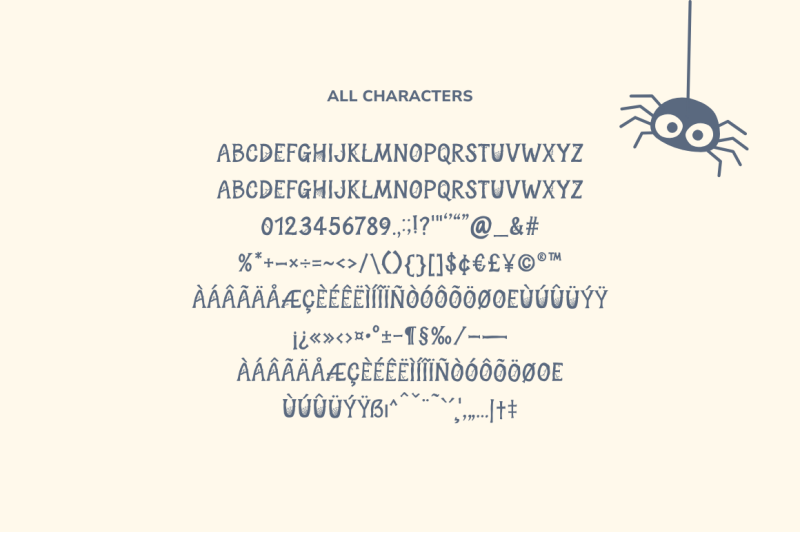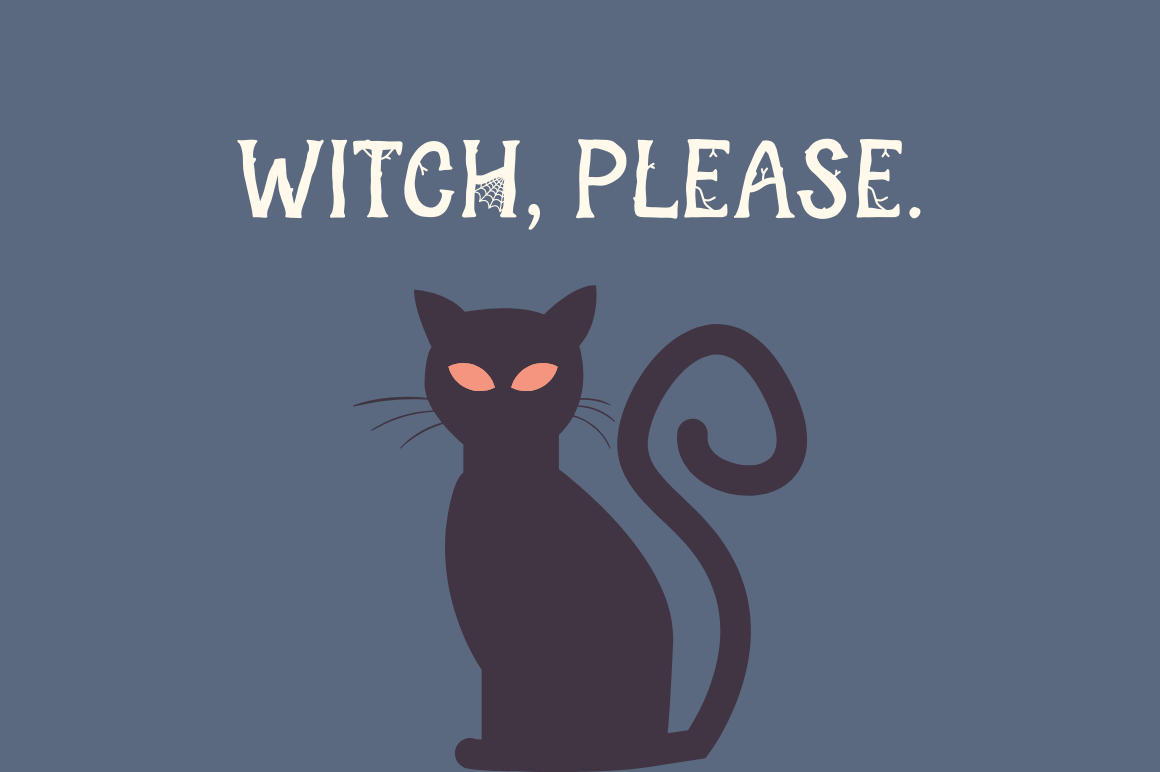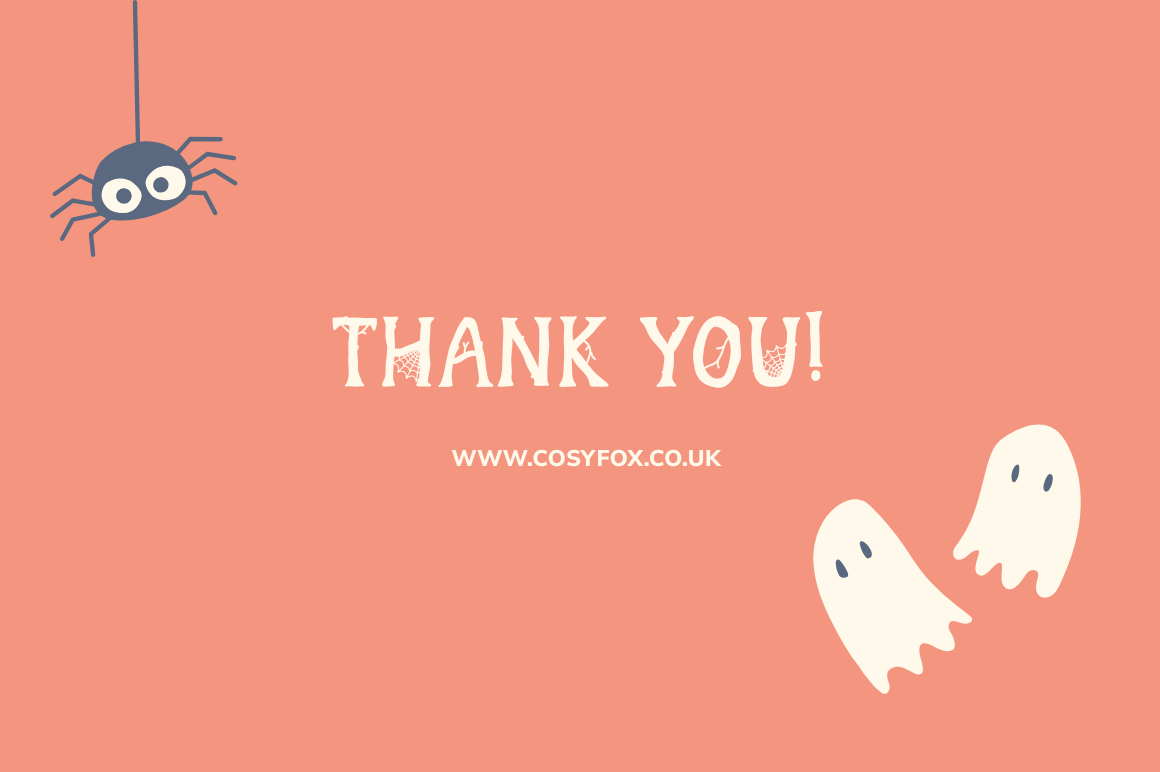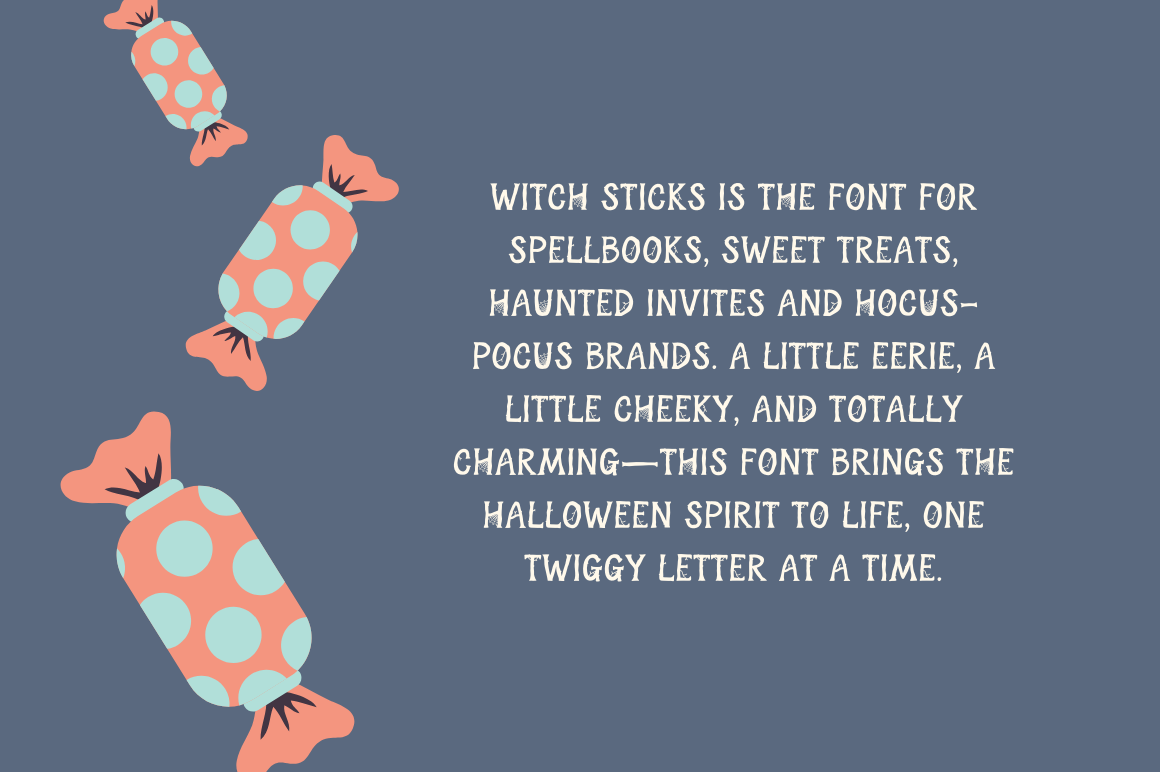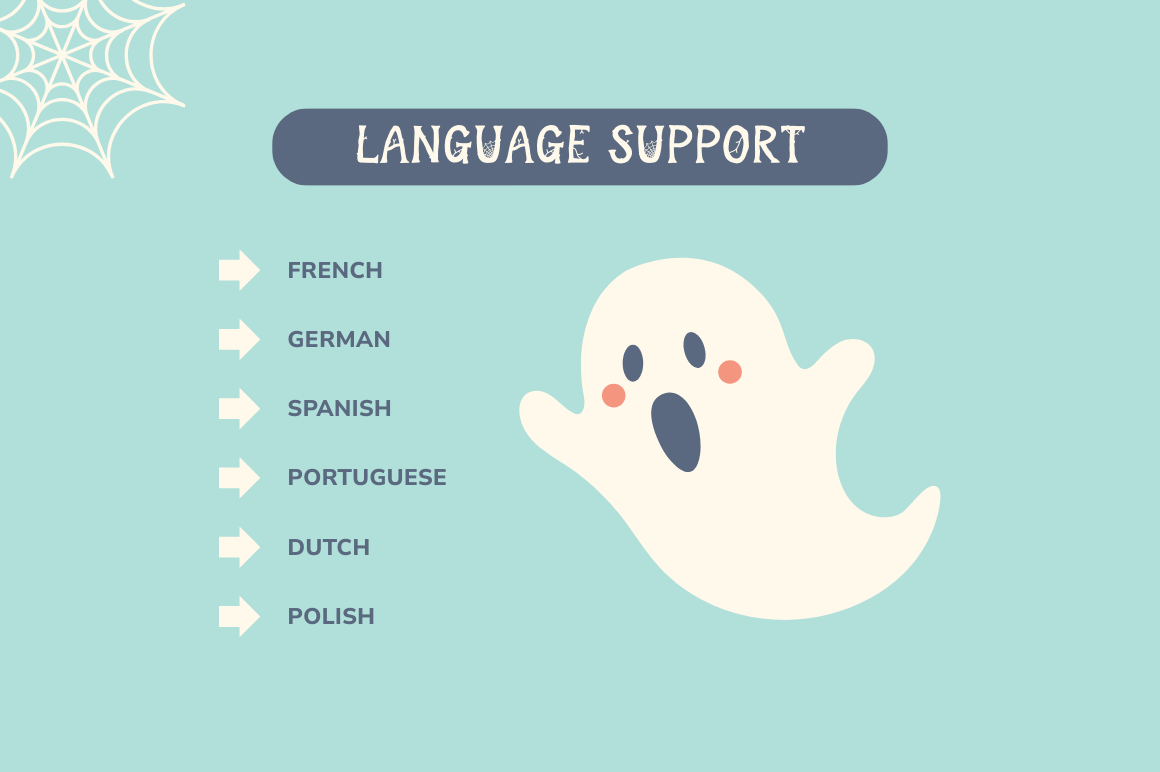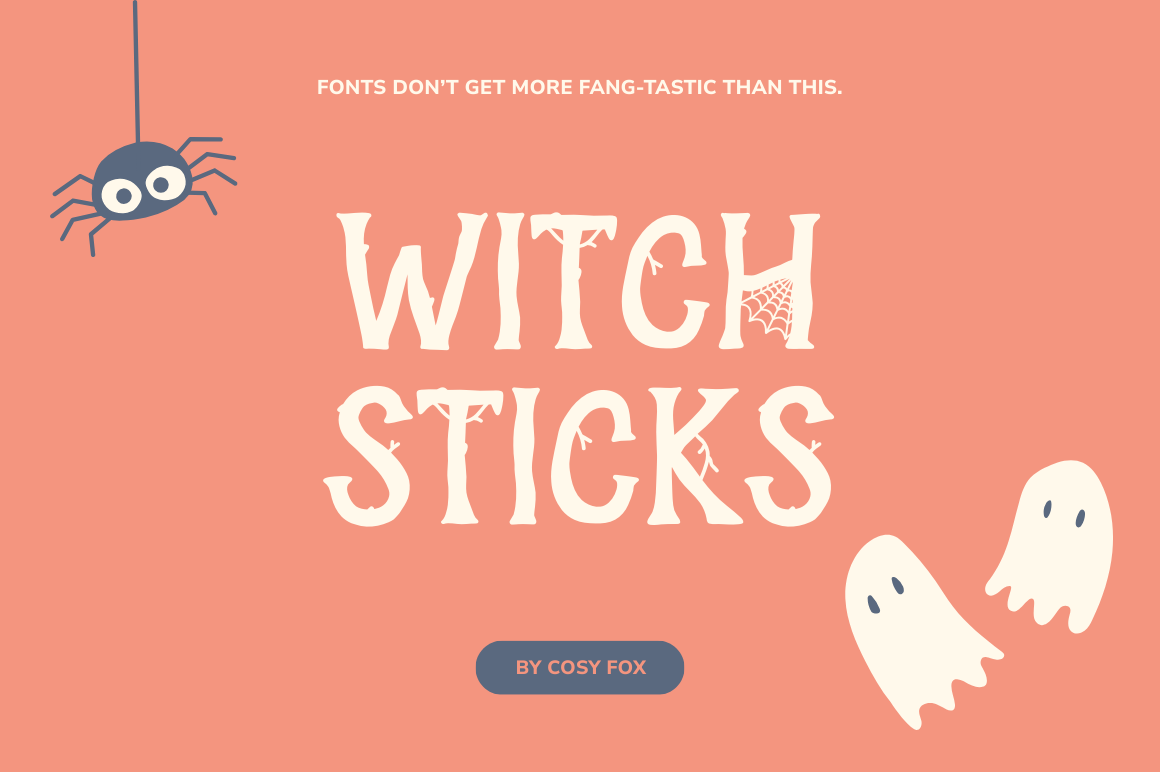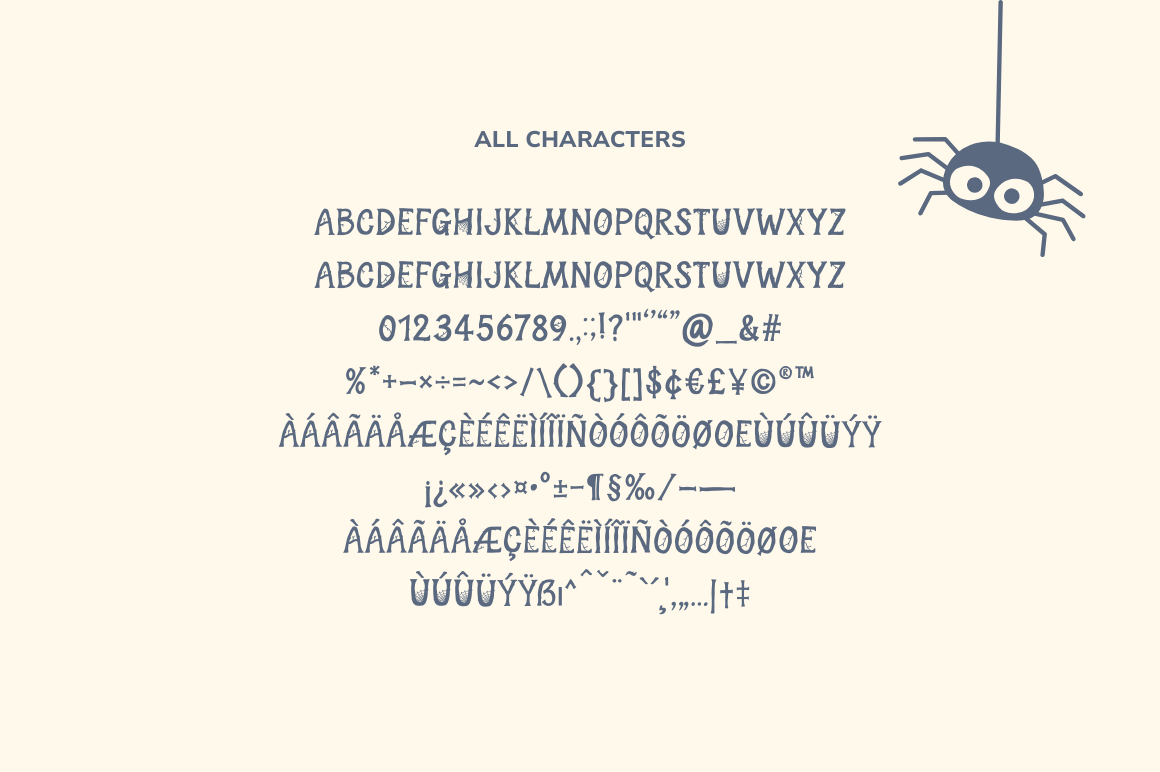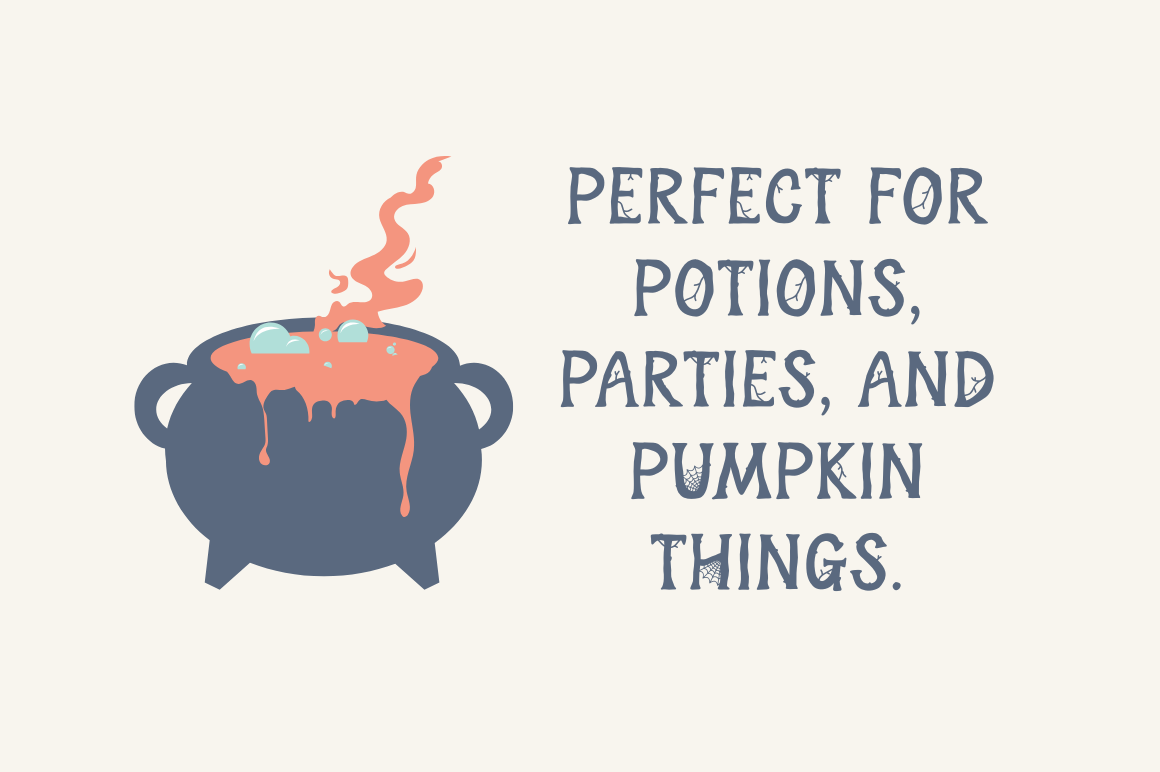
Witch Sticks Halloween Font
Witch Sticks is a spooky-cute Halloween font with twiggy lines, cobweb details, and a pinch of magic. Designed for everything from trick-or-treat signs to mystical party invites, this font brings playful haunted vibes to your seasonal designs. Whether you're whipping up sticker packs, spooky mugs, or event flyers, Witch Sticks adds a charmingly eerie twist. Includes full uppercase alphabet, numbers, punctuation, and cobwebbed personality in every letter. Works perfectly in Canva, Procreate, and all your favourite design tools. What You Get: Witch Sticks .OTF font file, How to Install PDF. Thank You! www.cosyfox.co.uk